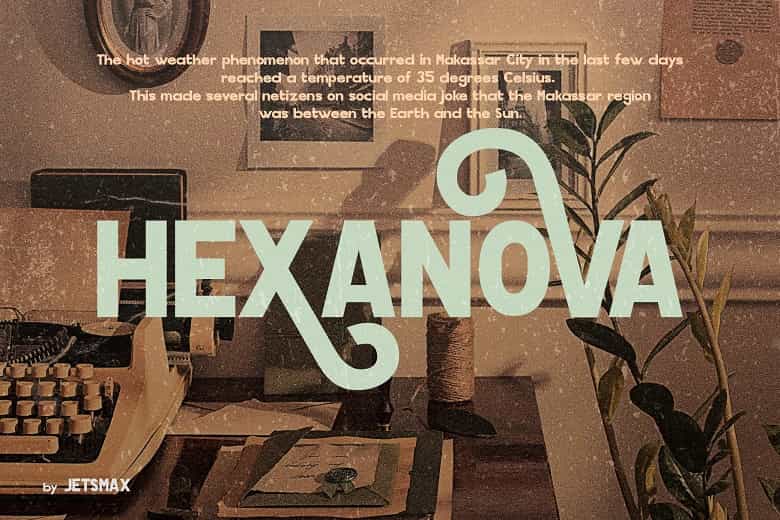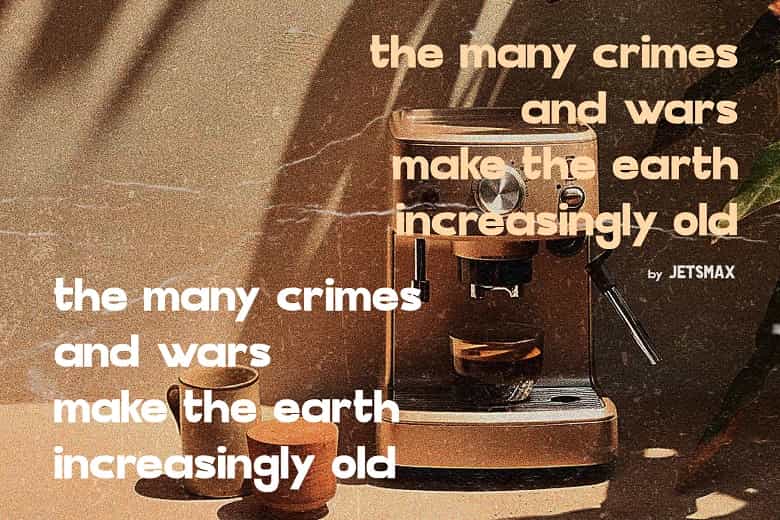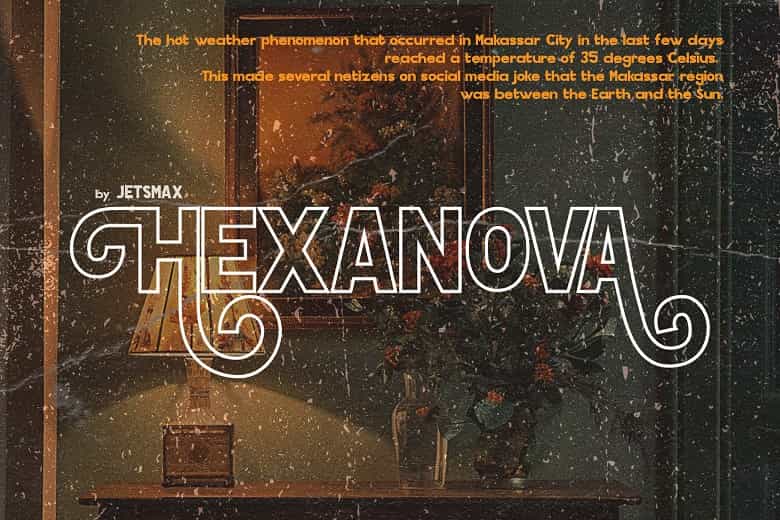
Discover Hexanova Font, part of the Sans Serif collection—a versatile and unique font perfect for adding a personal touch to your projects. Download it for free and enjoy crafting designs with style, from invitations to social media posts. This font is available exclusively for personal use, giving you the freedom to create without limits. Unlock your creativity with Hexanova Font today!
Hexanova is a new sans serif font that will work for text but has that little extra with its alternate characters. This font free for use to add that extra touch to your project and make it even more exceptional.